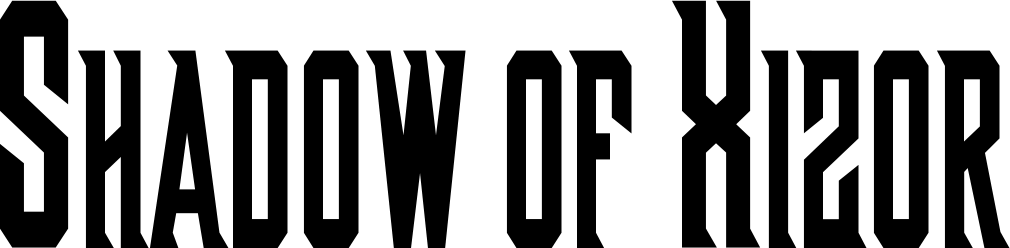
Shadow of Xizor Font
It’s time to use a retro font and capture attention at a glance. This one with geometric characters is perfect for logos, tattoos, posters, and so on. Download Shadow of Xizor right now and see how stunning it sounds. To find out more about biker gothic font you need to just browse our website.
based on the lettering for the logo of Star Wars “Shadows of the Empire” video game, novel, and comic
Shadow of Xizor is a narrow serif font that reproduces the original Shadows of the Empire logo’s typeface. The charset includes the underline logo ornament, the top Star Wars logo ornament and a “of the” mini letter group. Besides, you’ll find some dingbats reproducing the whole Star Wars logo letter group, the Imperial and the Rebellion logos, etc.